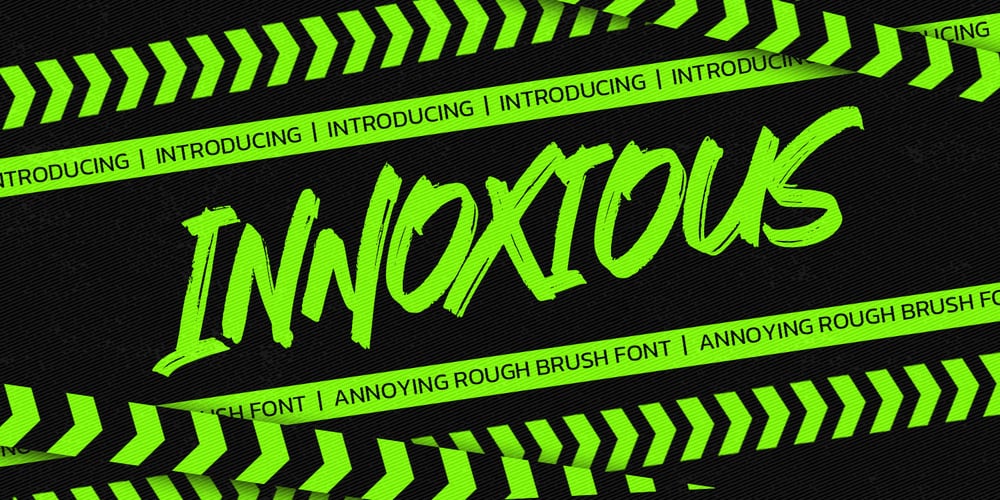
Innoxious Font Family was designed by Abdul Malik Wisnu, Anang Fibriyanto and published by Gassstype. Innoxious contains 1 styles and family package options. Here comes a New font, Introducing INNOXIOUS is a Annoying Rough Brush Font with a natural handwritten feel. This handmade font will make your design has a beautiful natural touch for each details. It is perfect for any design project as Invitation,logo, book cover, craft or any design purposes.This font INNOXIOUS is great for your next creative project such as logos, printed quotes, invitations, cards, product packaging, headers, Logotype, Letterhead, Poster, Design this font is great for your creative projects such as watermark on photography, and perfect for logos & branding, invitation,advertisements,product designs, stationery, wedding designs,label ,product packaging, special events or anything that need handwritting taste.That is has charming, authentic and relaxed characteristic more natural look to your text You can activate Ligatures OpenType panel.